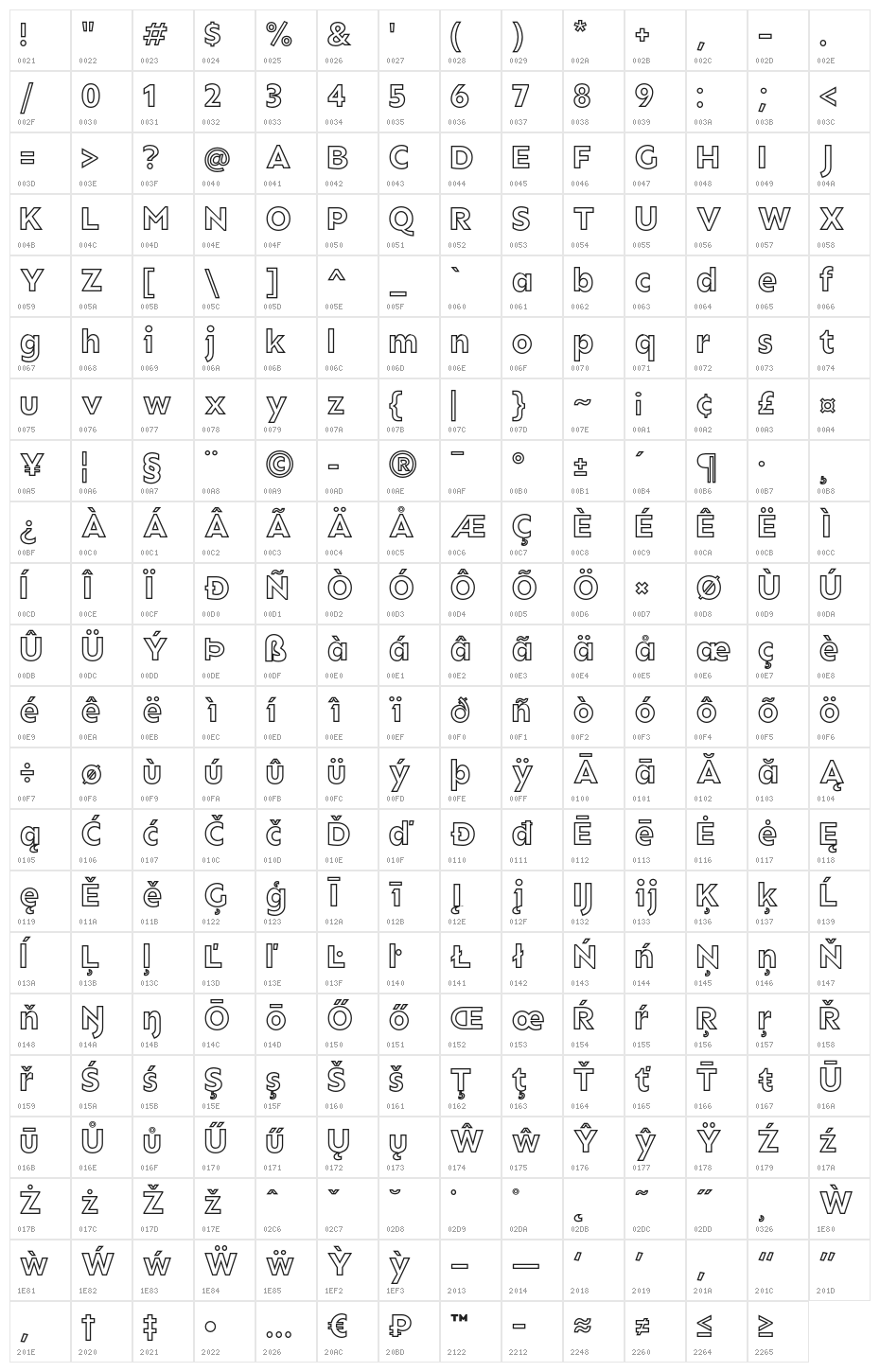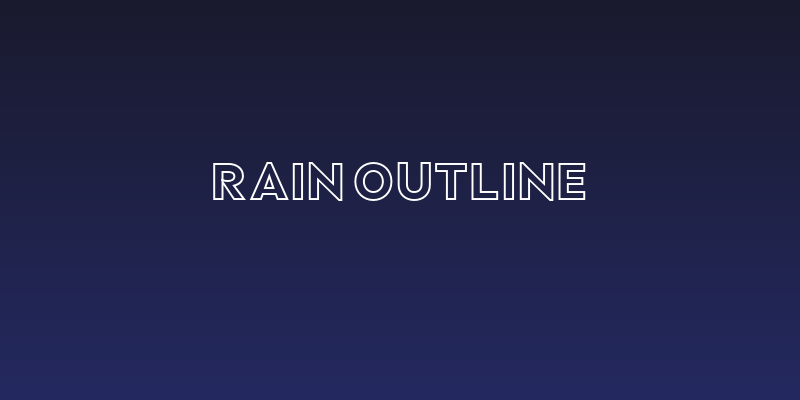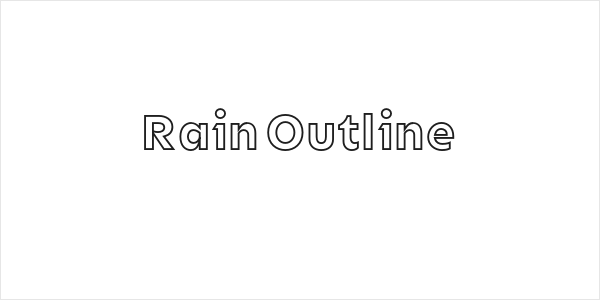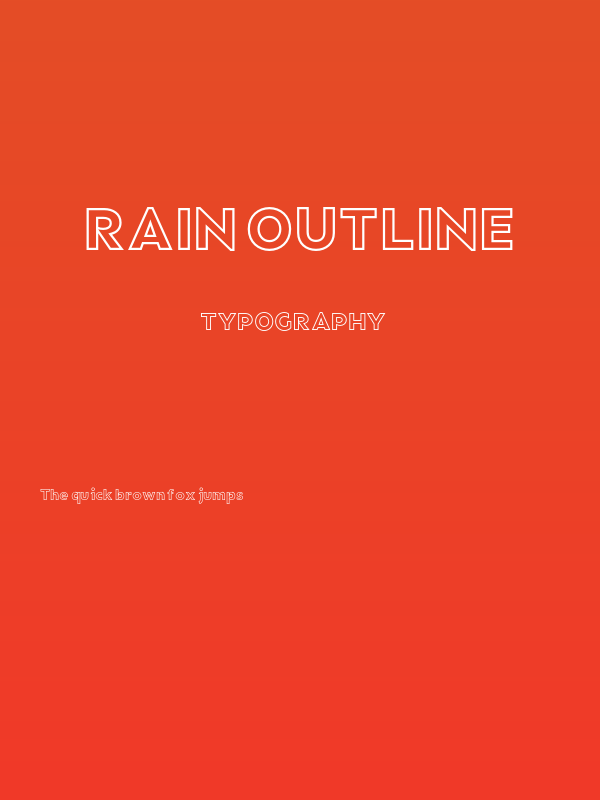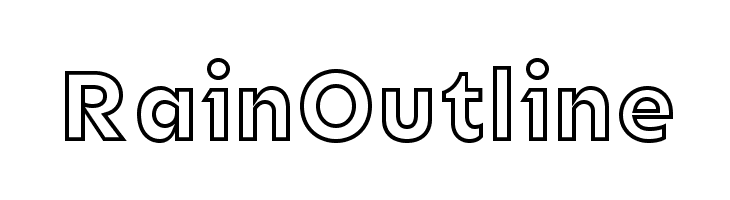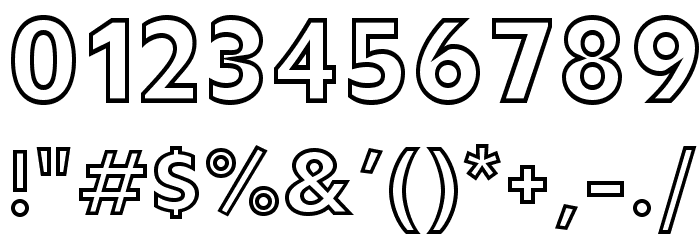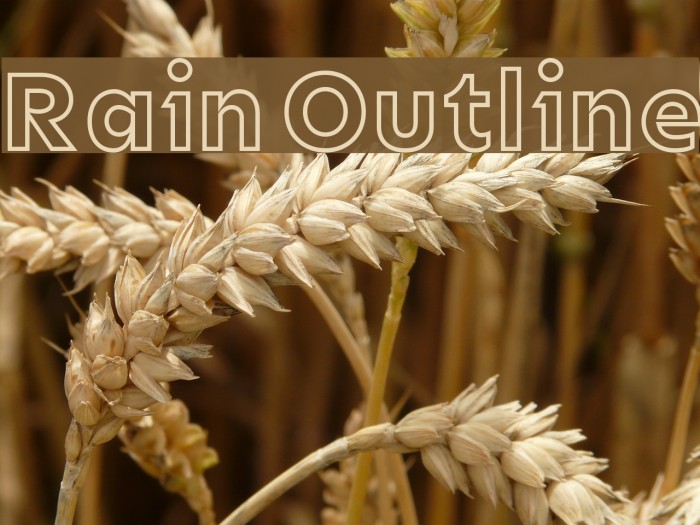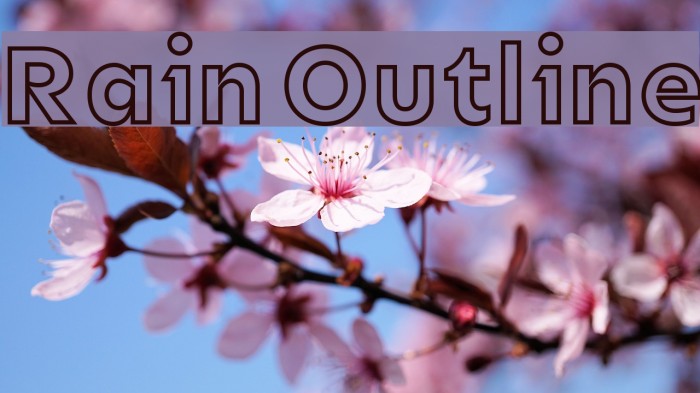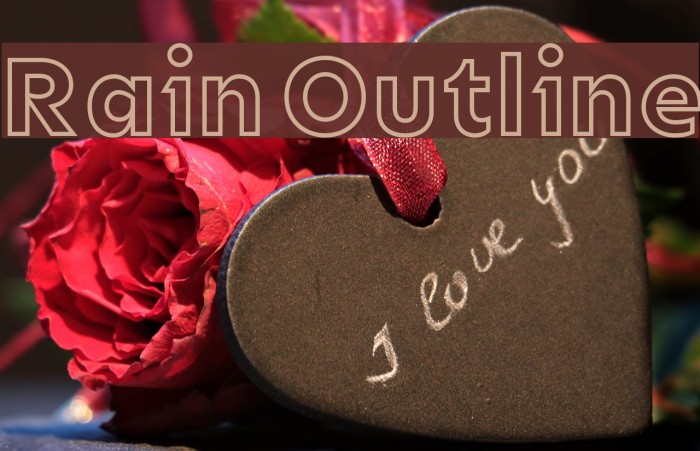
Rain Outline Font
Rain Outline Description
This font features a clean, geometric sans-serif style with an outline effect, giving it a modern and distinctive appearance. The characters are well-proportioned, with consistent stroke widths that create a balanced and harmonious look. The uppercase and lowercase letters maintain a uniform design, enhancing readability while adding a touch of elegance. The numerals and special characters are crafted with the same attention to detail, ensuring versatility across various applications. Its outline design makes it particularly suitable for projects that require a bold visual impact without overwhelming the viewer.
| Proposed Projects | Ideal for branding, headlines, posters, and digital media where a striking and modern aesthetic is desired. |